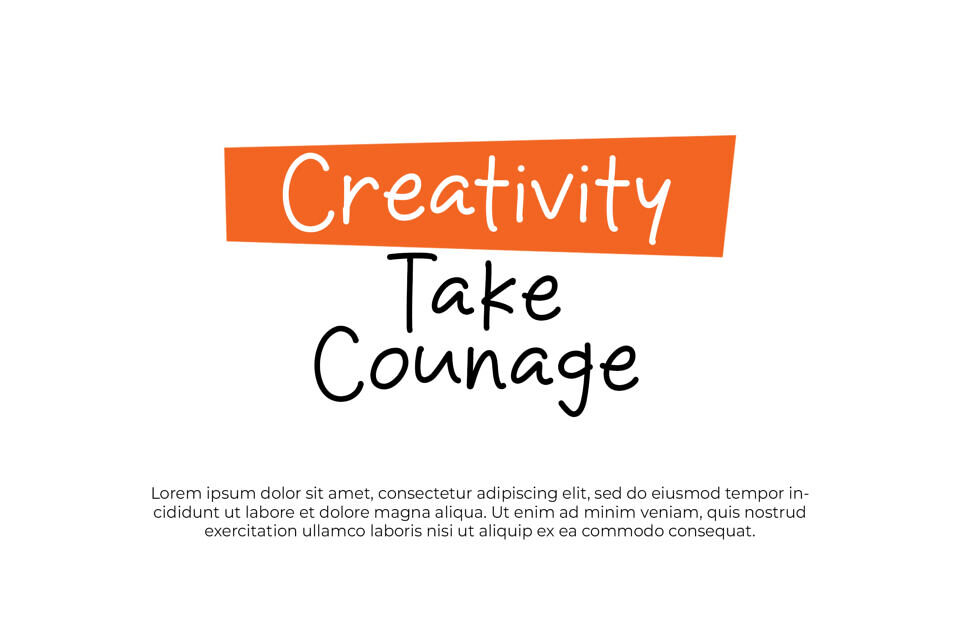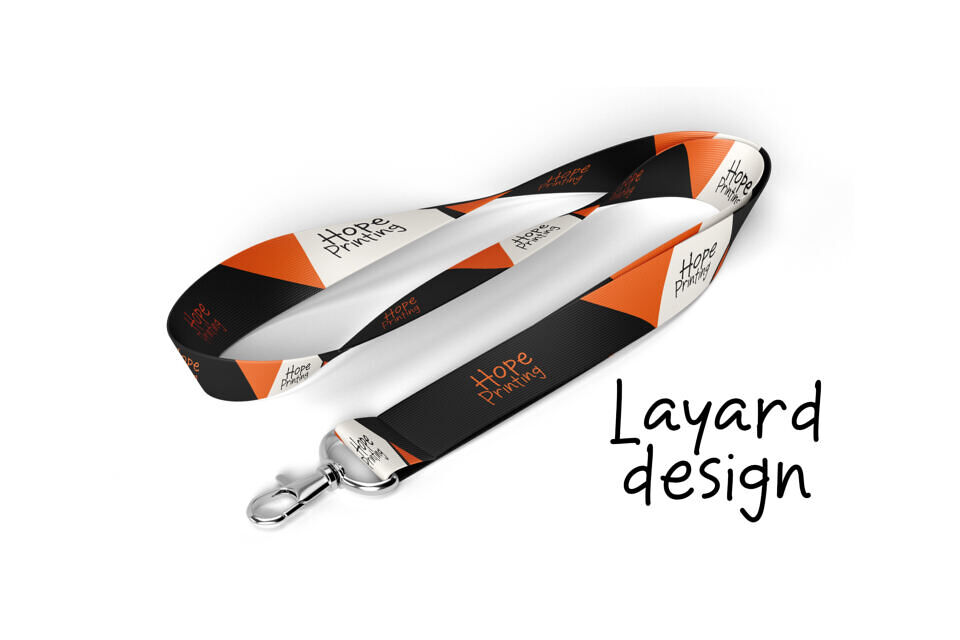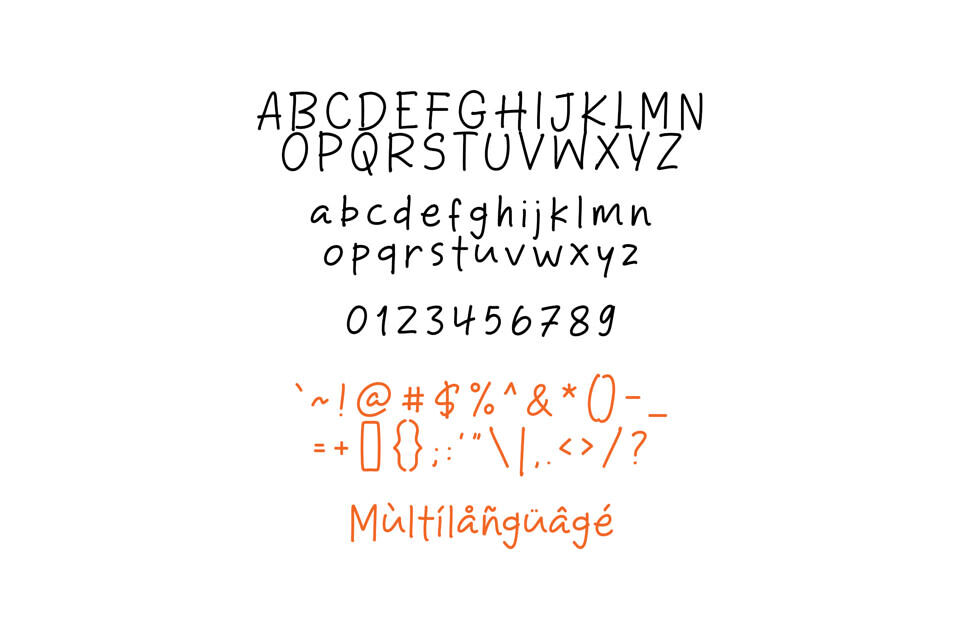
Take Print Font
Introducing the Take Print, a font that is fresh, cute and unique style handwriting font for your design project. Take Print is perfectly suited to logo, stationery, poster, apparel, branding, wedding invitation, card, tagline, layout design, and much more!
Designed by: Khurasan (Syafrizal), Suzuran Type